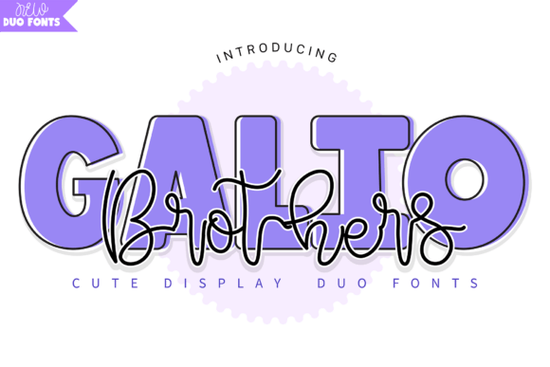
When you need a typography pairing that grabs attention without feeling too aggressive, finding the right balance between a heavy display face and a flowing script is key. The Galio Brothers Duo Font solves this by combining a thick, rounded outline style with a bouncy monoline script. This combination gives crafters, small business owners, and designers a ready-made toolkit for projects that need to feel friendly, modern, and highly readable across both digital and physical mediums.
What makes this font pairing stand out for modern projects?
The secret to a great design often lies in visual contrast. This specific typeface set gives you two distinct styles that work perfectly together without clashing. The display version features a thick, rounded outline that remains super readable even at large sizes. It is perfect for punchy headlines on colorful posters, YouTube thumbnails, or trendy streetwear branding. On the other hand, the script version adds a smooth, handwritten touch. You can use it for overlays, sub-titles, or signature-style text to soften the overall look and add a personal feel to your layouts.
How can crafters and print-on-demand sellers use these styles?
If you sell print-on-demand products or create physical crafts, versatility is everything. The bold display face works beautifully on t-shirts, mugs, and sticker designs where you need the text to stand out from a distance. Meanwhile, the script style is ideal for adding a handmade feel to wedding invitations, kids' school projects, or custom packaging labels.
How do you get the best results when mixing these two faces?
Mixing a heavy display font with a light script can sometimes look unbalanced if you are not careful with your sizing and spacing. The key is to let the display font do the heavy lifting for your main message, while using the script as an accent. Keep the script slightly smaller than your main headline, and use it to highlight a single word or add a decorative swoosh. This creates a natural hierarchy that guides the viewer's eye exactly where you want it to go.
Before you start your next project, keep this quick design checklist in mind:
- Pair for contrast: Use the thick display face for your main headline and the script for a secondary detail, tagline, or decorative element.
- Check your spacing: Because the display font has a heavy outline, increase the letter spacing slightly when setting all-caps headlines to keep the text crisp and readable.
- Test your cuts: If you are using these for vinyl decals, run a small test cut first to ensure the script connections hold up on your specific machine and material.
- Play with color: Try using a solid, bright color for the display text and a contrasting pastel for the script to make the duo look cohesive.